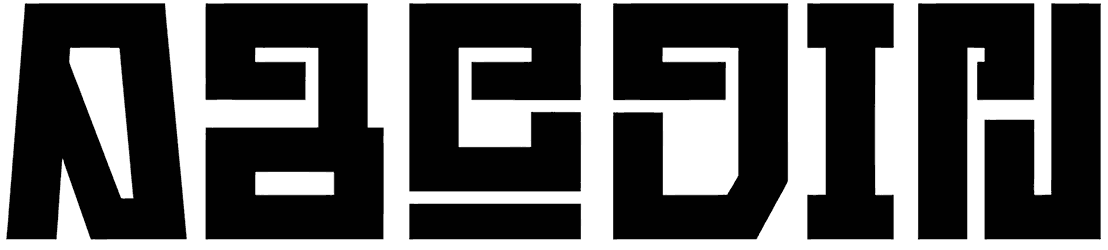
New Space Font
New Space font is one of the most prominent futuristic fonts with blocks in each character. This bold font will make your work easier and you can use its symbols beside other characters.
Indeed, you do not see small characters in this font, but instead, big characters will be a great replacement for your large-sized designs, such as billboards on race roads.